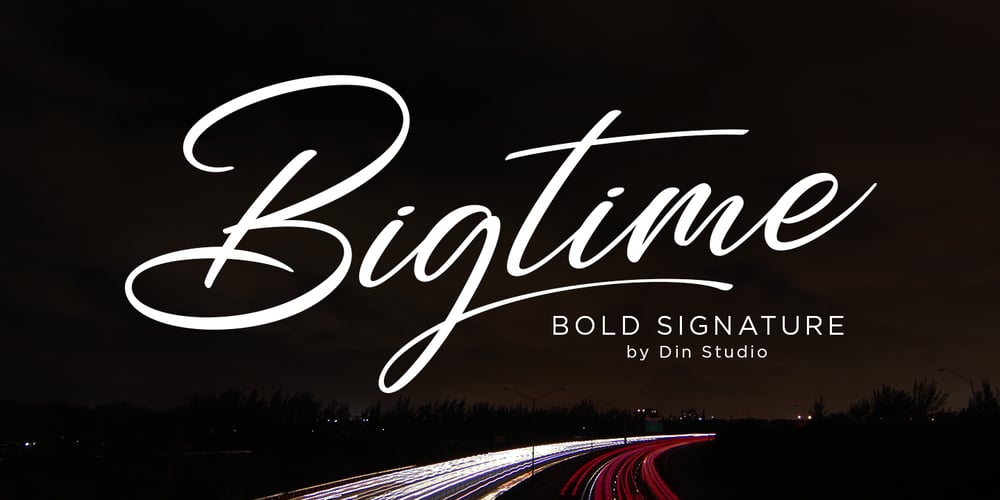
Bigtime Font Family was designed by Donis Miftahudin and published by Din Studio. Bigtime contains 1 styles and family package options. Introducing Bigtime! If you are looking for a powerfull signature font for your branding and project design, Bigtime script is the best choice. Bigtime script creates a natural, modern and luxury style. A powerful identity will give more value for your work, so you need this in your branding. Easy to use Let’s make your designs great! Best, Donis